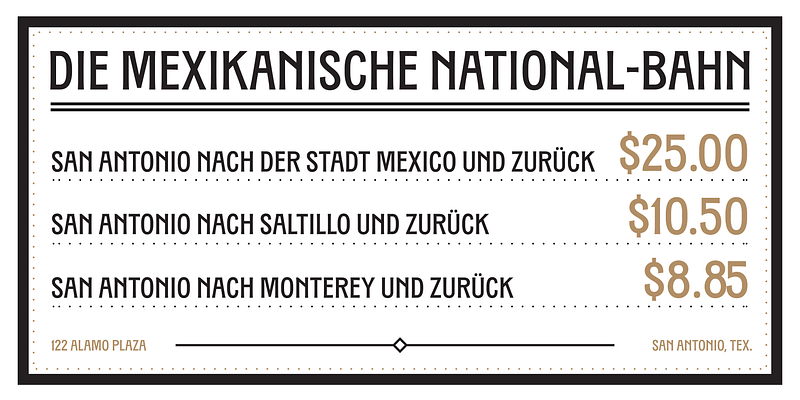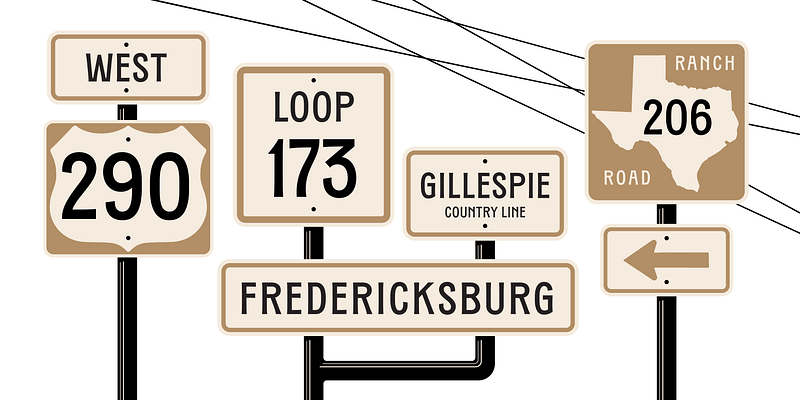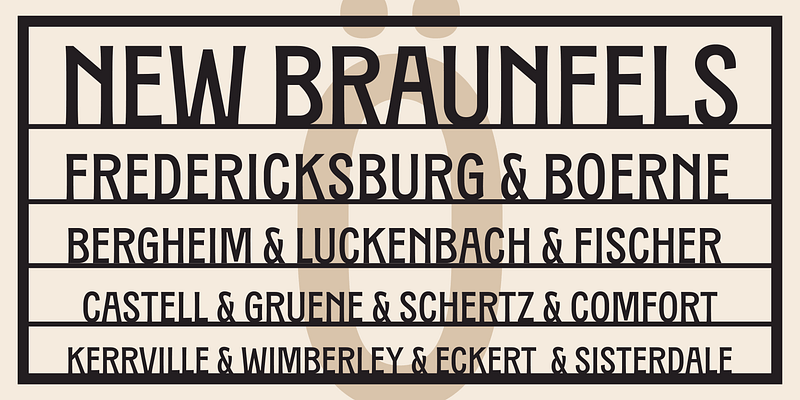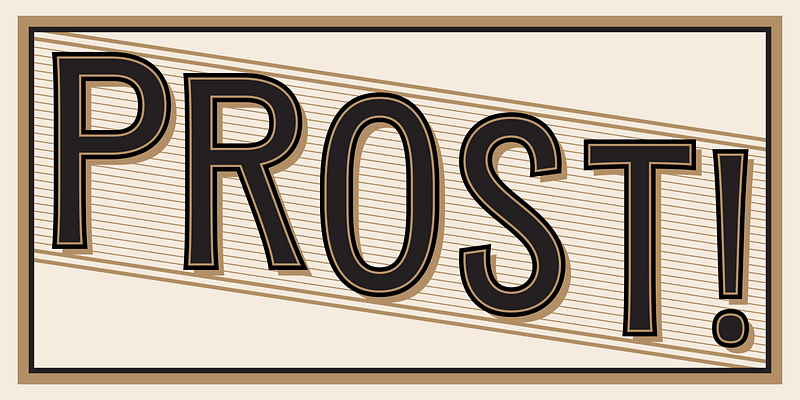
An uppercase condensed sans influenced by both American wood type and Jugendstil lettering found in German newspaper advertisements published in Texas during the 19th century